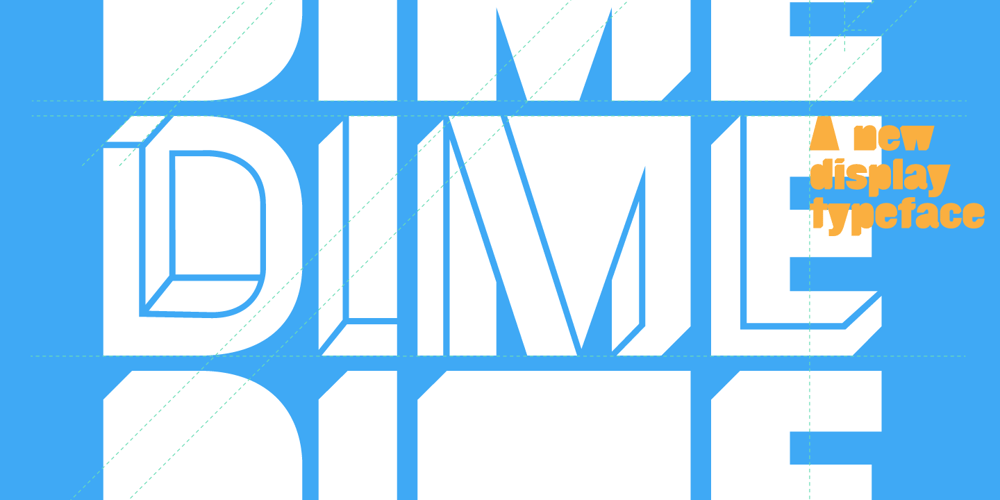
Dime Font Family was designed by Sumpatha Jadee, Vorathit Kruavanichkit and published by Produce. Dime contains 2 styles and family package options. Intended to create a typeface that contain both two dimensional and three dimensional elements, Dime gives a very bold optical illusion effect. It is so intense and masculine that it is still macho in pink. Available in both Solid and Lined.